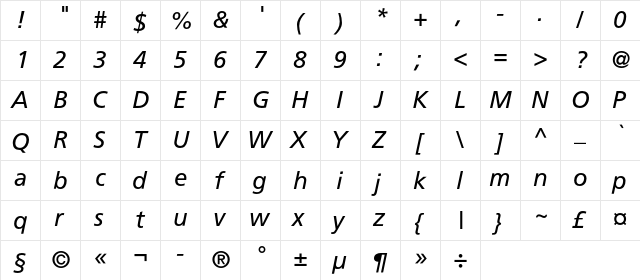
AGForeignerC Italic Font Preview
AGForeignerC Italic
Design Context for AGForeignerC Typeface
AGForeignerC takes a measured approach to typography — its balanced proportions and neutral character make it a reliable workhorse for both digital and print work. Its italic angle brings a sense of urgency and motion to the letterforms.
Pro Tip: Try AGForeignerC for annotation and caption copy alongside an upright companion — the contrast in angle creates a dynamic but ordered typographic system.